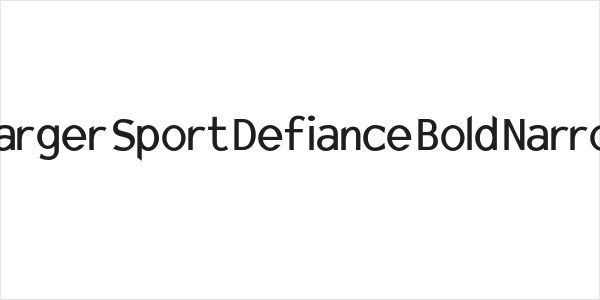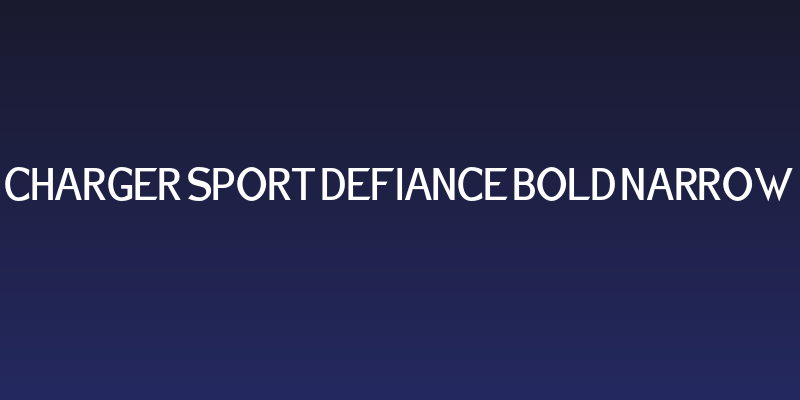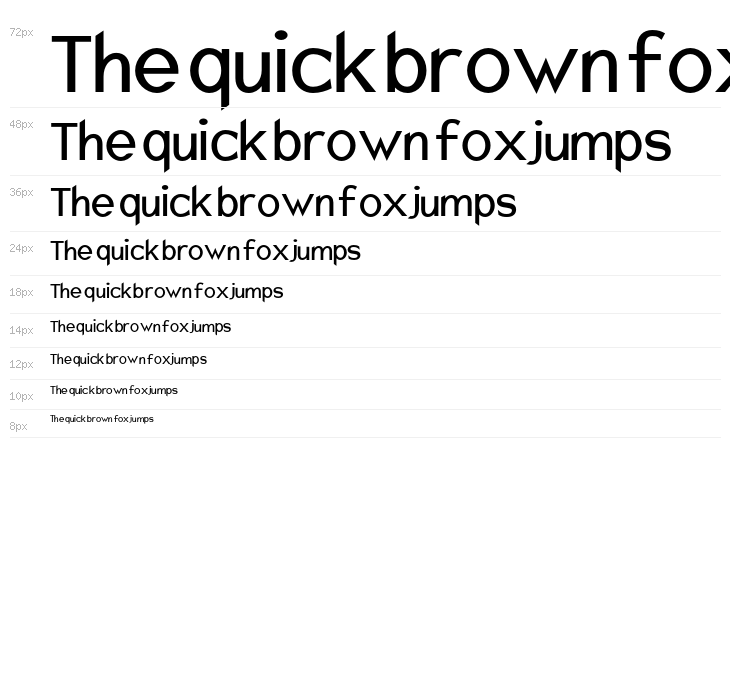
Charger Sport Defiance Bold Narrow Font
Charger Sport Defiance Bold Narrow Description
This font features a bold and narrow design, characterized by clean lines and a modern aesthetic. The uppercase letters are tall and commanding, while the lowercase letters maintain a consistent height, ensuring readability. The numerals are proportionate and align well with the overall style, making them suitable for various applications. Special characters are distinct and well-formed, adding versatility to the font. The overall appearance is sleek and contemporary, making it ideal for projects that require a strong visual impact.